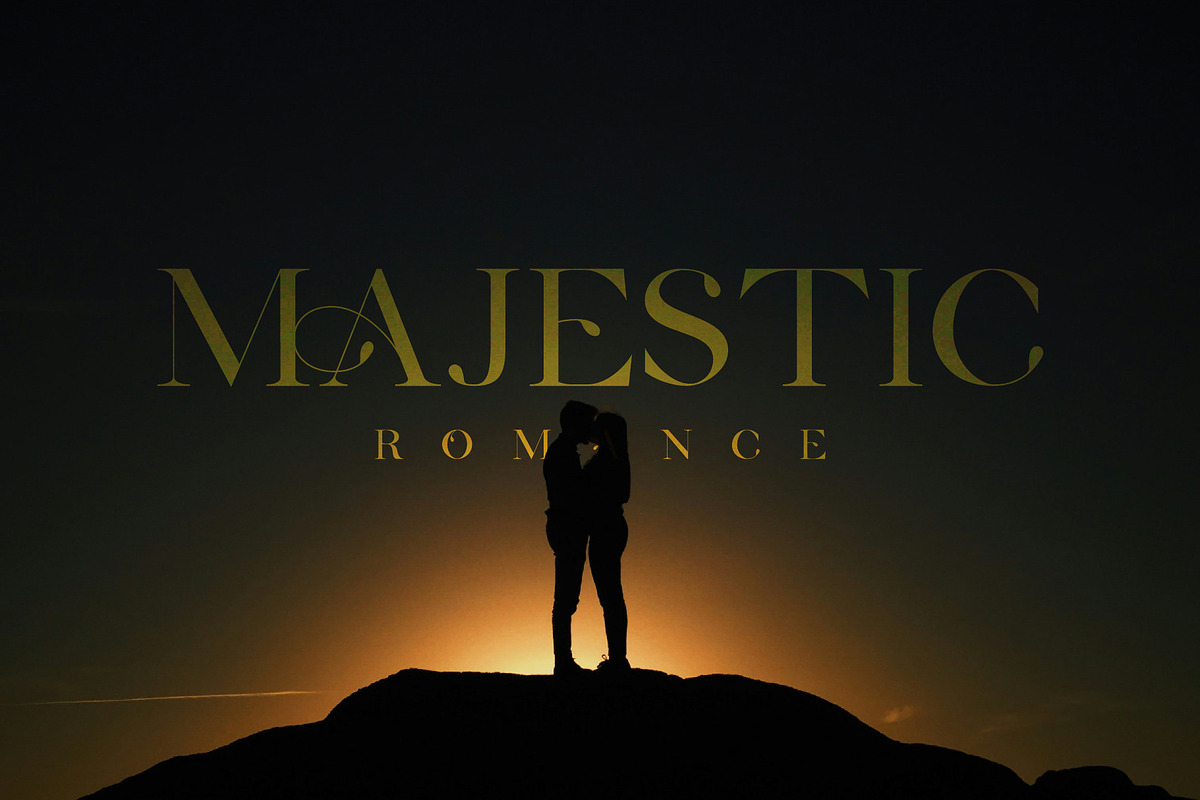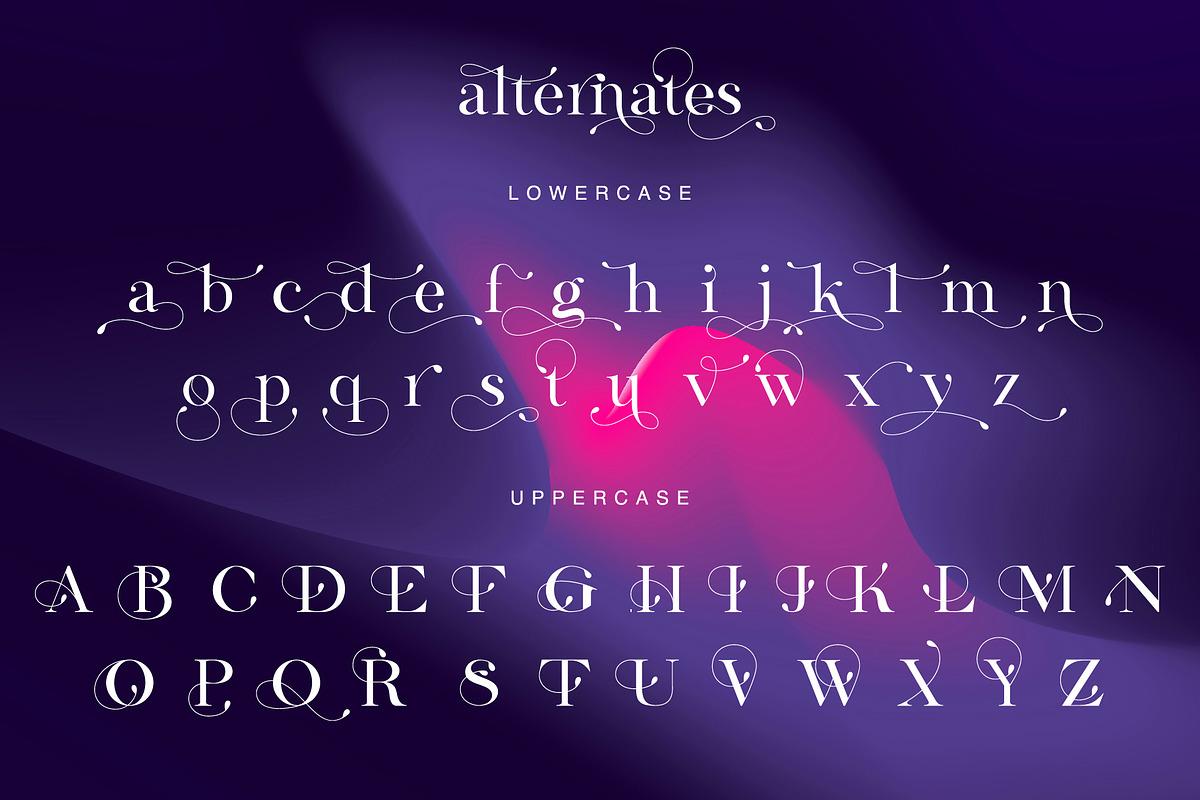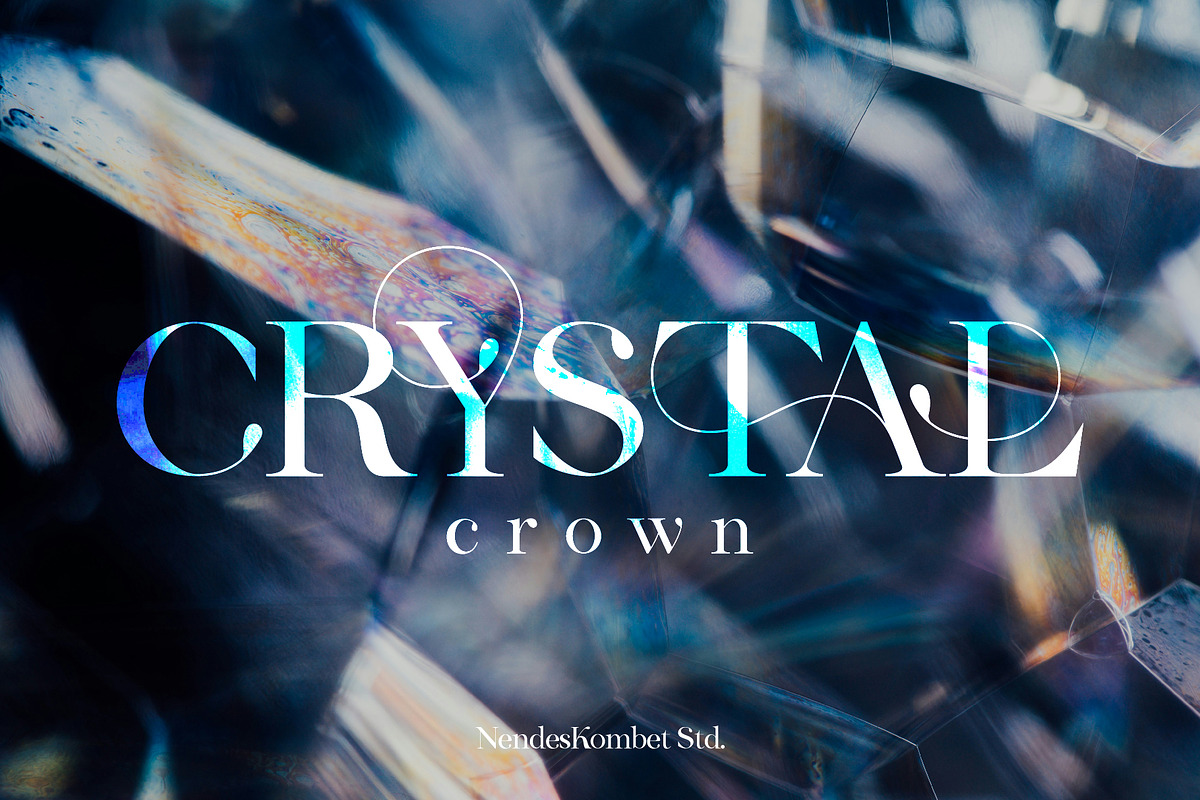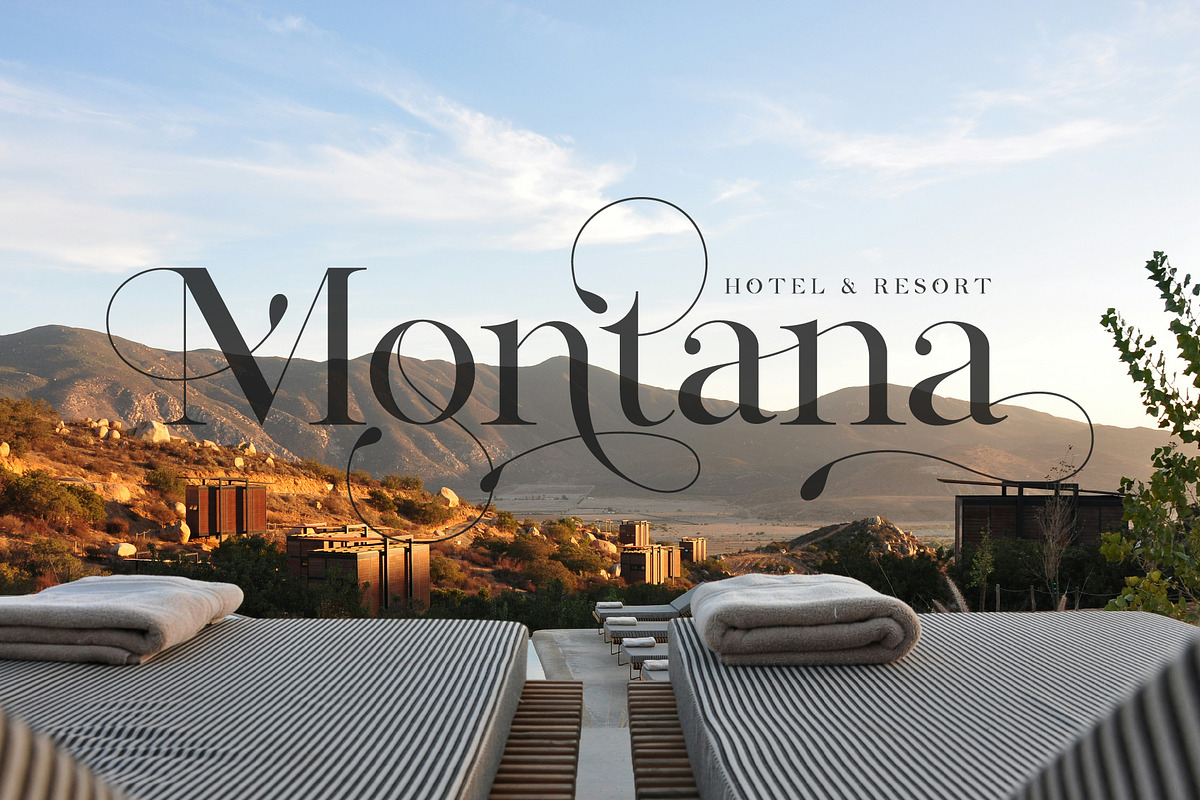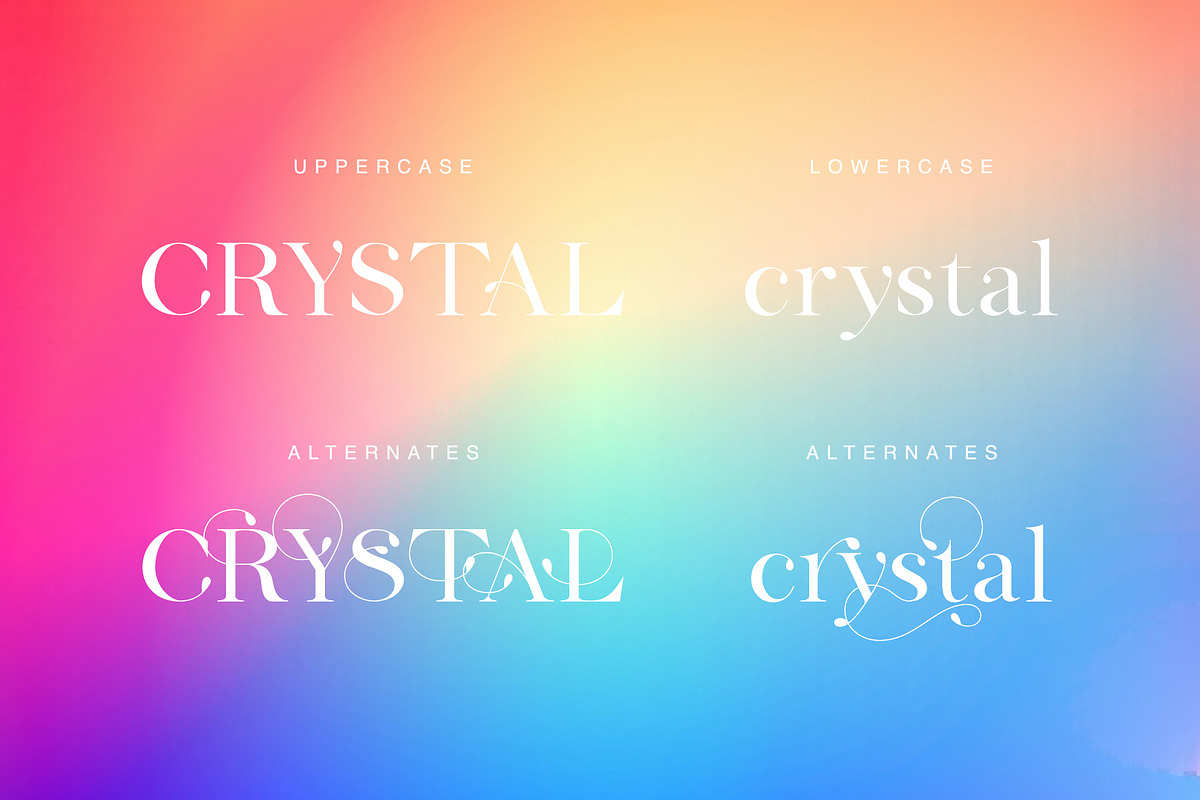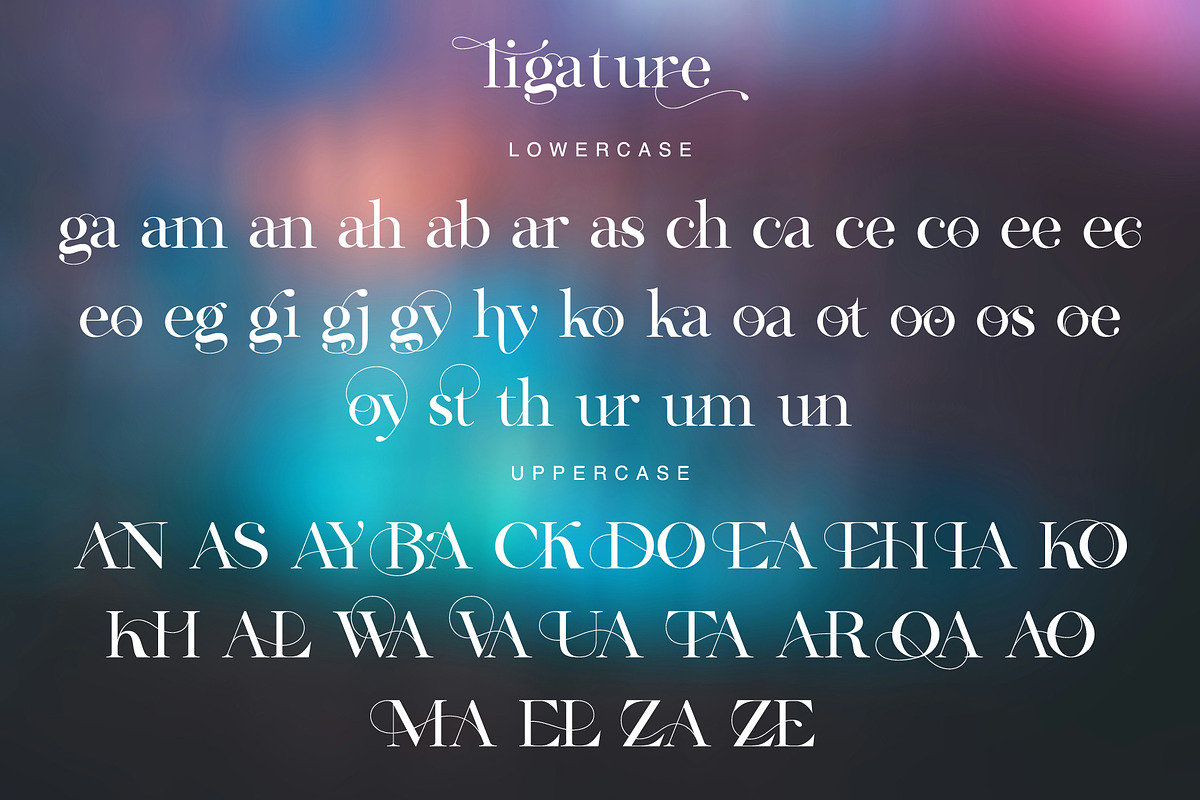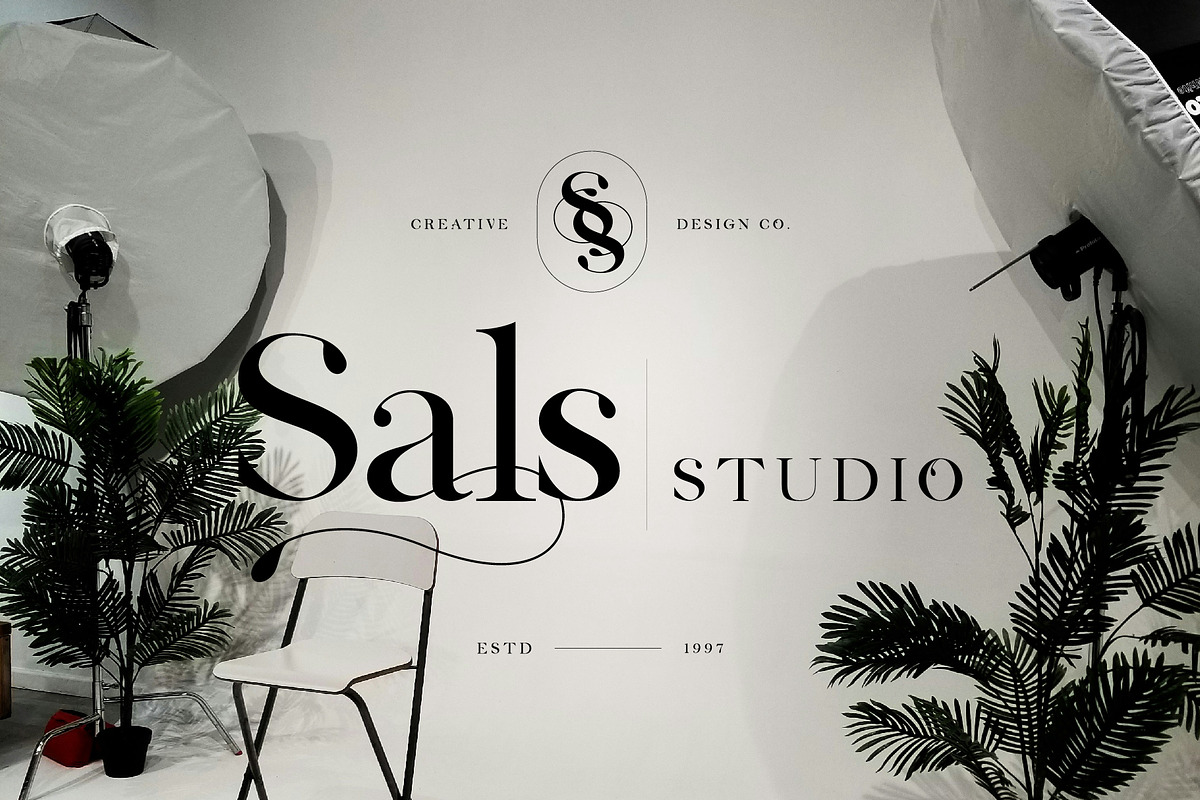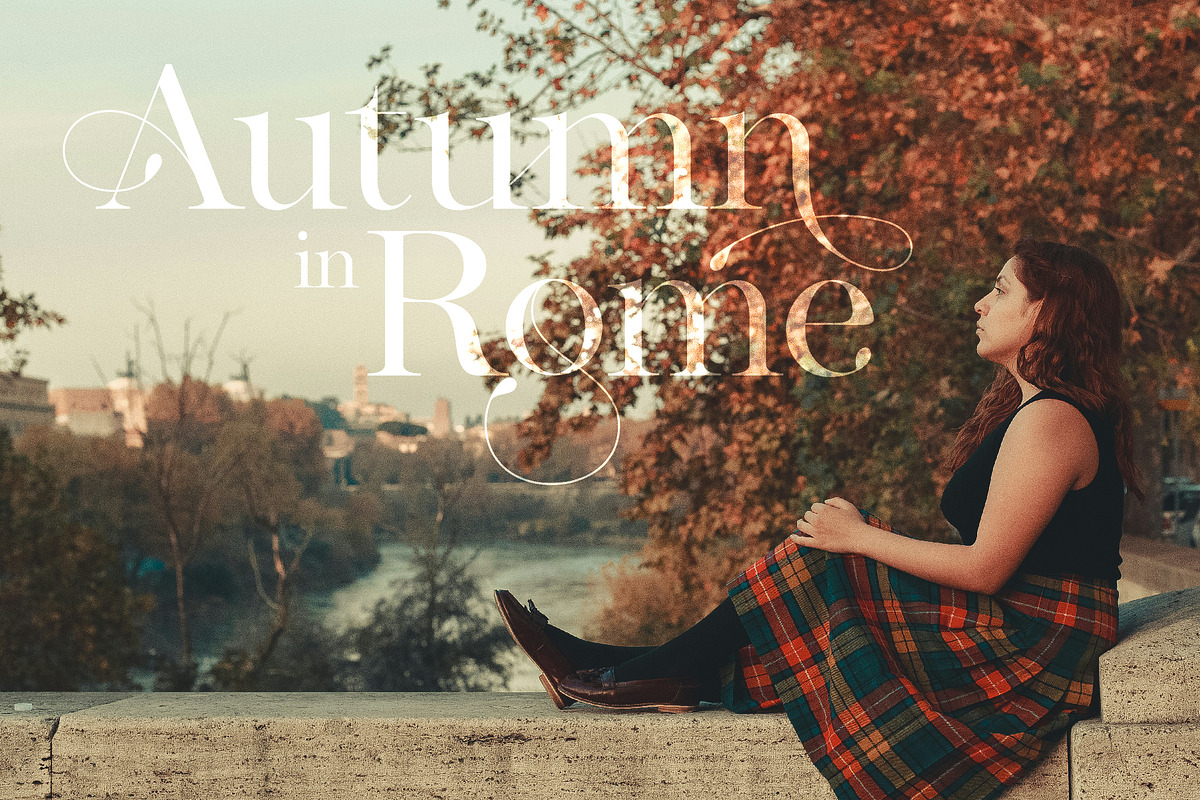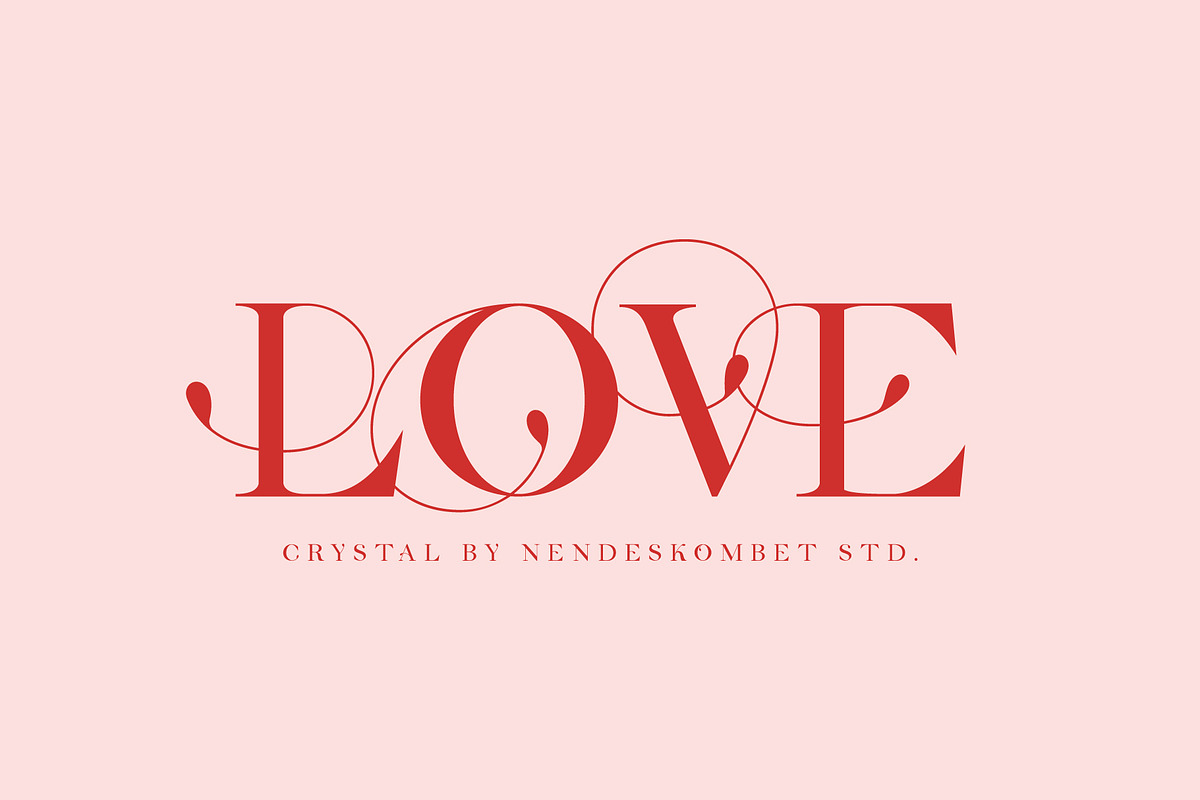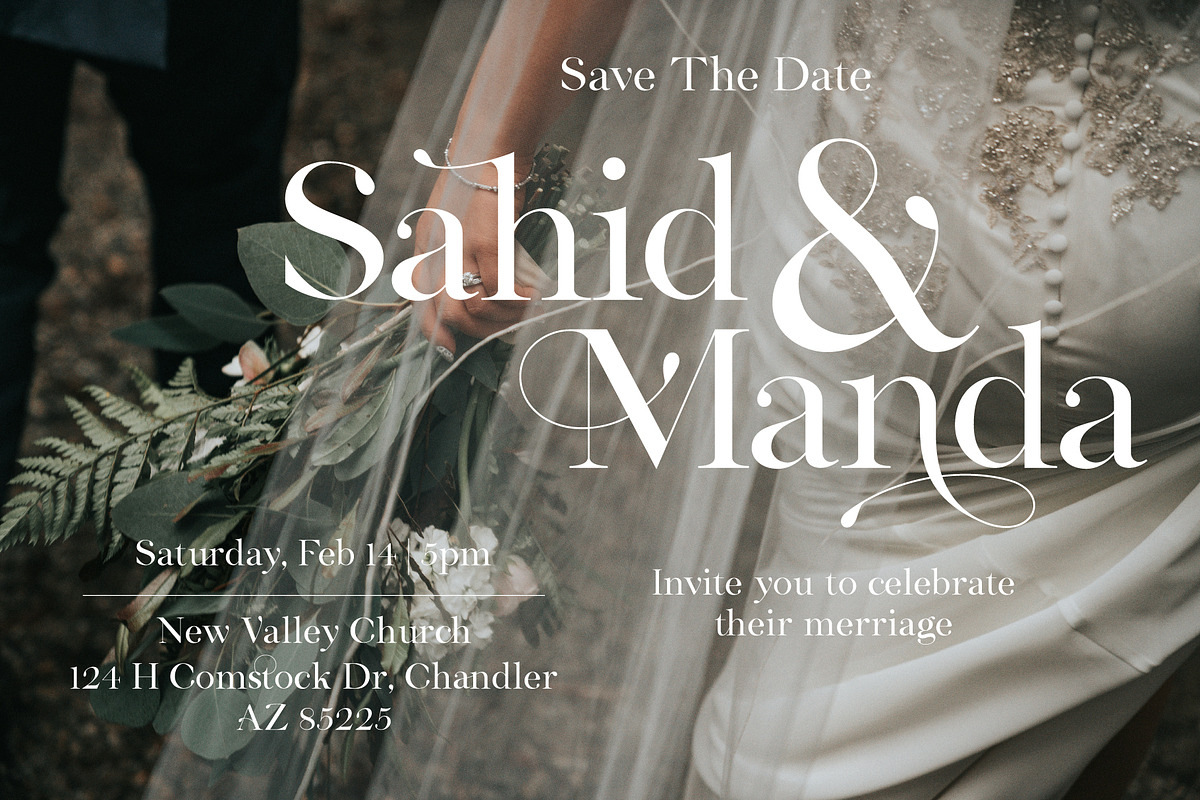
Crystal Crown -Natural Beauty Serif
Crystal Crown -Natural Beauty Serif by NendesKombet Studio
Crystal Crown is a stylish font that is modern, elegant and unique font that uses ligatures to smoothly link letters. Perfect for branding, logos, invitation, masterheads and more. Crystal Crown has 55 ligatures, 51 alternates for upper and lower case as well as numbers and punctuation making it super versatile.